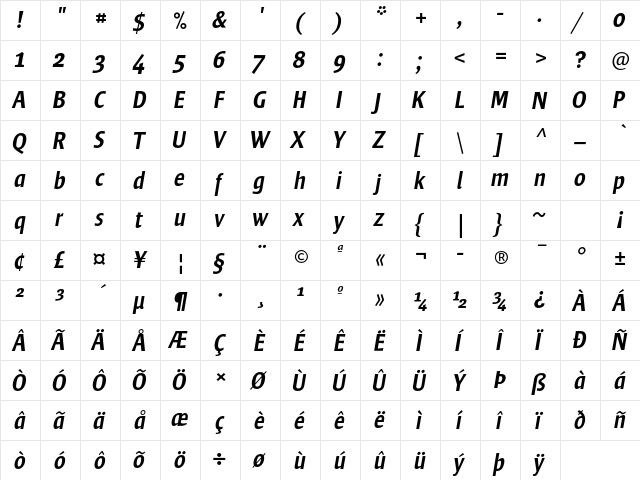
Frisans Std Italic
| Designer | Bo Berndal |
Design Context for Frisans Std Typeface
Frisans Std takes a measured approach to typography — its balanced proportions and neutral character make it a reliable workhorse for both digital and print work. Its italic angle brings a sense of urgency and motion to the letterforms.
Pro Tip: Try Frisans Std for annotation and caption copy alongside an upright companion — the contrast in angle creates a dynamic but ordered typographic system.